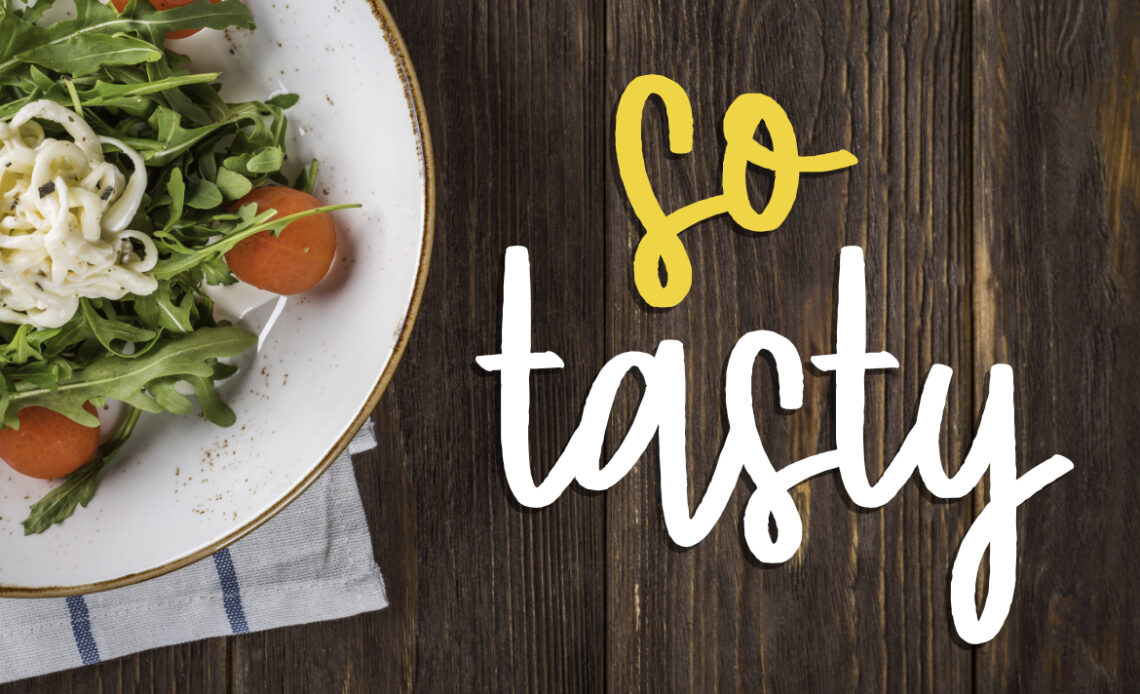
Welcome to the world of So Tasty, a captivating universe where elegance and readability harmonize seamlessly. This exquisite script font, meticulously crafted by the renowned LebahStudio, is not merely a collection of letters but a gateway to captivating designs.
Indulge in the sensory delight of So Tasty's graceful curves and refined contours. Its flawless readability ensures that your message will resonate with clarity, while its stylish flair adds a touch of sophistication to any project.
Whether you're a seasoned designer or simply yearning to add a touch of individuality to your creations, So Tasty effortlessly transforms ordinary words into extraordinary expressions. Its versatility knows no bounds, adapting effortlessly to a kaleidoscope of design styles.
Embrace the allure of So Tasty and watch your designs blossom with unparalleled charm. Let its elegant strokes elevate your brand, ignite your creativity, and leave an indelible mark on the hearts of your audience.